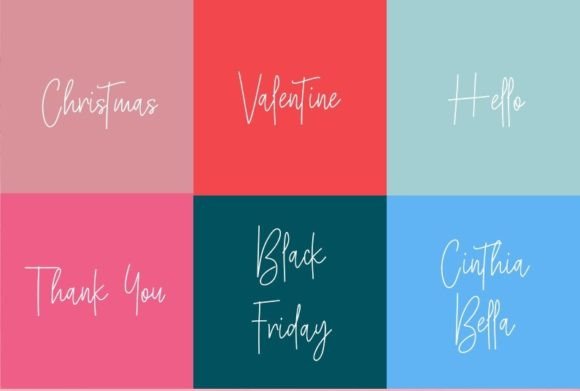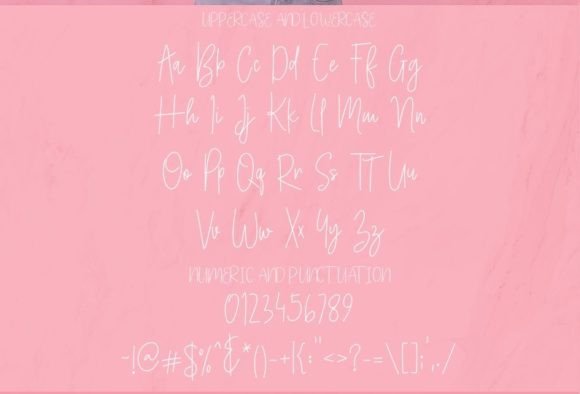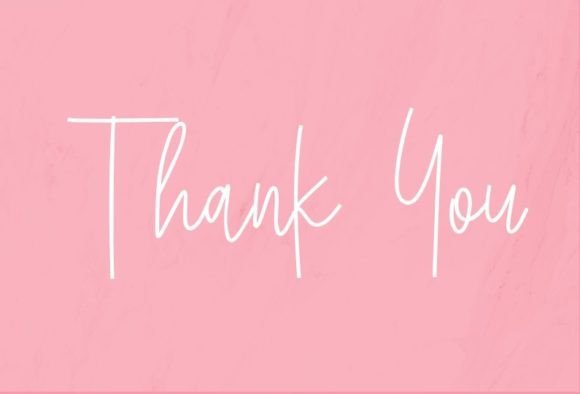
Discover the Charm of Girl Fashion Font: Elevate Your Designs with Elegance
In the world of design, fonts play a pivotal role in conveying messages, expressing emotions, and creating lasting impressions. For those seeking a touch of elegance and sophistication, the Girl Fashion Font stands out as a remarkable choice. This beautiful handwritten font is not just a typographic style; it’s an invitation to infuse your projects with a distinct and timeless charm. Ideal for a wide range of applications, from logos and wedding stationery to photography watermarks and modern websites, Girl Fashion Font is about to become your go-to for creating spectacular designs.
The Distinctive Appeal of Girl Fashion Font
What sets Girl Fashion Font apart is its incredibly distinct style. In an era where fonts are plentiful and often blend into the background, this handwritten font captures attention and holds it. Its unique character is reminiscent of personal, handwritten notes, yet it carries a level of sophistication that elevates any design. Whether you’re crafting a logo that needs to stand out, designing wedding stationery that speaks of elegance, or adding a professional touch to photography watermarks, Girl Fashion Font brings a level of refinement that’s hard to match.
One of the key advantages of Girl Fashion Font is its versatility. It’s not confined to a single use or industry. Here are some of the many ways you can incorporate this beautiful font into your designs:
- Logos: Create a memorable brand identity with a logo that uses Girl Fashion Font. Its unique style ensures your brand stands out.
- Wedding Stationery: Add a touch of romance and sophistication to wedding invitations, menus, and thank-you cards.
- Photography Watermarks: Protect your images with a watermark that exudes professionalism and style.
- Modern Websites: Enhance the user experience with a font that is both elegant and readable.
- Crafting and DIY Projects: Whether you’re creating personalized gifts or crafting materials, Girl Fashion Font can add that special touch.
Why Choose Girl Fashion Font?
Choosing a font for your design project can be overwhelming, given the numerous options available. However, Girl Fashion Font ticks several boxes that make it an excellent choice:
- Timeless Appeal: Unlike trends that fade, Girl Fashion Font’s classic style ensures your designs remain relevant.
- Customization: Offers flexibility in terms of size, color, and styling, allowing for complete creative control.
Tips for Using Girl Fashion Font Effectively
To make the most of Girl Fashion Font, consider the following tips:
- Pair with Simplicity: Let the font be the focal point by pairing it with simple backgrounds or design elements.
- Experiment with Colors: While the font itself is elegant, experimenting with colors can help match your brand or project’s theme.
- Consider Readability: Ensure that the font size and color contrast well with the background for optimal readability.
| Font Name | Girl Fashion Font |
| Author | Goodrichees |
Girl Fashion Font is more than just a typographic style; it’s a design element that can transform your projects with its elegance and charm. Its versatility, timeless appeal, and ease of use make it an invaluable asset for designers and crafters alike. Whether you’re creating something for personal use or for a client, incorporating Girl Fashion Font into your designs promises to elevate them to a new level of sophistication. So, fall in love with its distinct style and let it guide you in creating spectacular designs that leave a lasting impression.